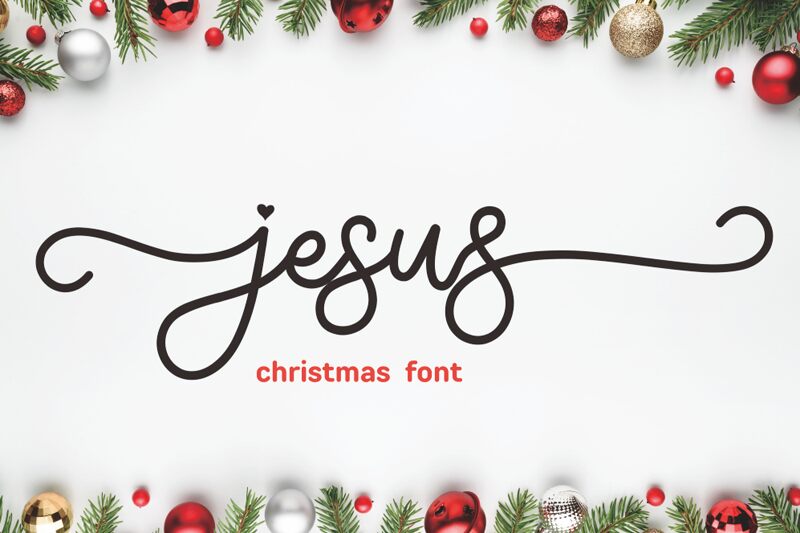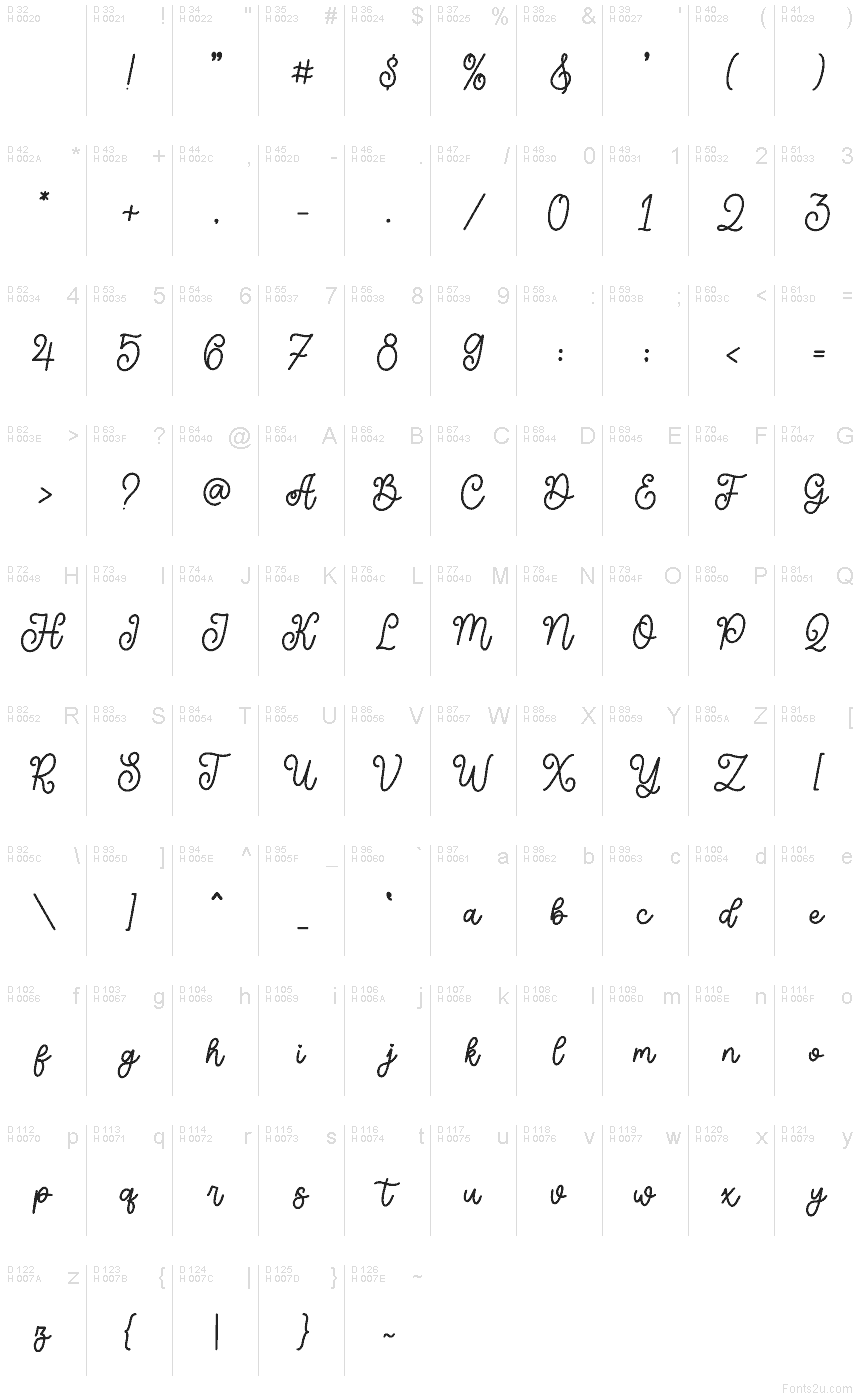
Jesus
Jesus font by Mozatype is a free holiday handwritten script typeface with a warm, devotional feel. Smooth, looping strokes and rounded, open letters give it the look of ink brushed slowly across a card, with just enough weight to stay legible at smaller sizes. It feels personal and reverent at the same time, making it easy to bring a faith-centered tone to Christmas designs without looking stiff or formal.
Using Jesus font, you can add heartfelt character to Christmas cards, church event posters, Bible journaling pages, scripture wall art, gift tags, and social media verses. The connected script flows beautifully across long phrases, especially when you give it generous line spacing and room to breathe. This free font pairs nicely with a clean sans serif for supporting text, letting the script carry the message while the simpler type handles dates, details, and captions.